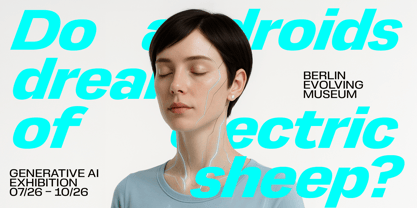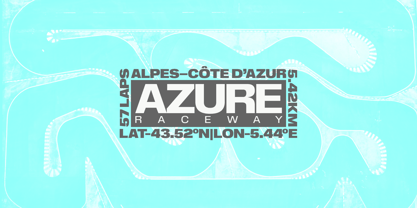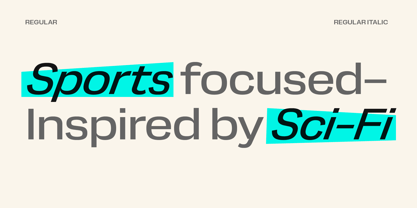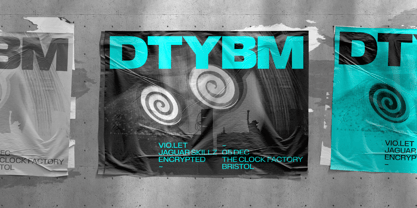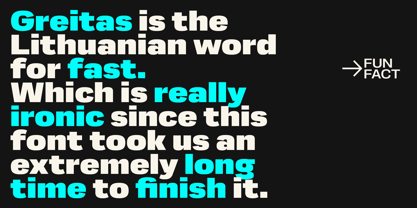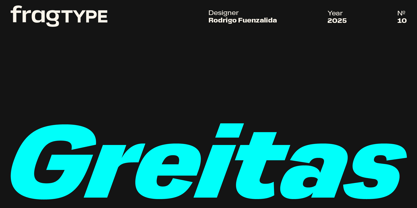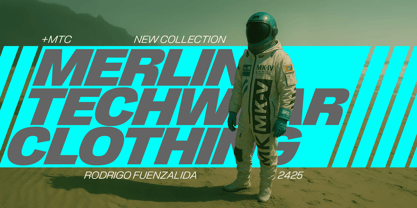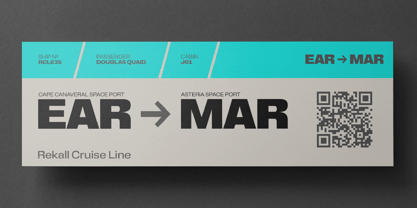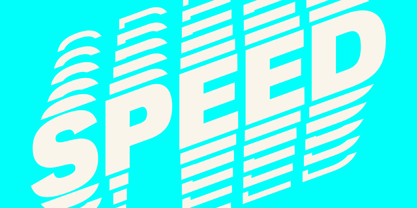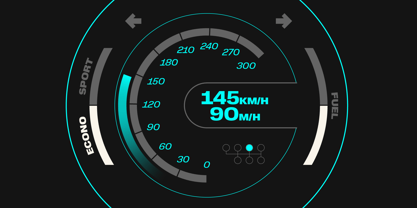
Greitas
by fragTYPE
The Greitas Font Family was designed by Rodrigo Fuenzalida and published by fragTYPE. Greitas contains 16 styles and family package options.
Greitas is a type family born from my lifelong fascination with science fiction cinema. Inspired by the iconic Eurostile and Microgramma—fonts that defined the futuristic aesthetic of the ’70s and ’80s—Greitas reimagines that legacy for today.
What sets it apart is its boldly aggressive italics, designed with a sharp 20-degree slant that injects instant speed and energy—ideal for sports branding, dynamic logos, and high-impact visuals. Beyond sports, Greitas shines in editorials, headlines, posters, social media, and web design, delivering a confident and versatile voice wherever it’s used.
With a full range of weights, matching italics, alternates, ligatures, and multilingual support, and full set of Opentype features, Greitas is a complete toolkit built to power striking, future-ready design.